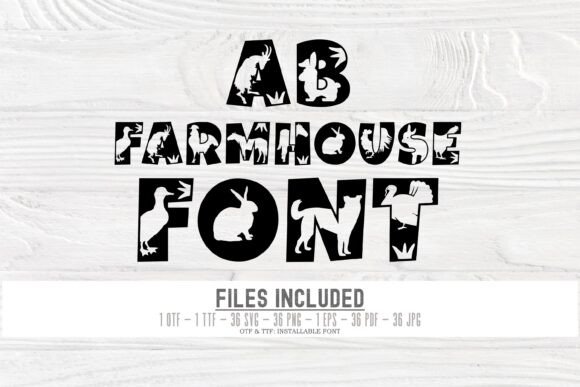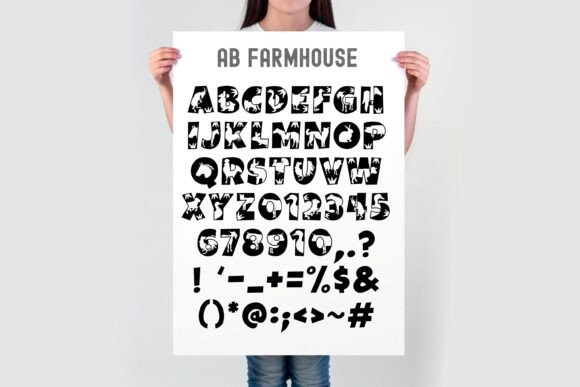
Venture into the Whimsical World of the AB Farmhouse Font
Are you ready to add a touch of rustic charm to your designs? Look no further than the AB Farmhouse Font, a unique and playful font that combines bold typography with delightful depictions of farm animals. This charming font is perfect for designers, crafters, and anyone looking to add a dash of country flair to their projects.
A Font Like No Other
The AB Farmhouse Font is not your average font. Each character is stylishly designed to house a different pastoral creature, making it a true standout in the world of typography. From cows to chickens, pigs to horses, every letter and number is carefully crafted to bring a touch of farmhouse charm to your designs. Whether you’re working on a farmhouse-themed décor project, a children’s craft, or simply looking to add some earthy charm to your designs, this font is sure to delight.
Rustic Allure Meets Playful Uniqueness
The AB Farmhouse Font is where rustic allure meets playful uniqueness. The font’s bold typography and whimsical animal designs make it the perfect combination of country charm and playfulness. The font’s unique design ensures that every project stands out from the crowd, adding a touch of personality and whimsy to any design. Whether you’re a designer looking to add some flair to your work or a crafter looking for a unique font for your projects, the AB Farmhouse Font is sure to inspire.
Endless Possibilities
The AB Farmhouse Font is incredibly versatile, making it perfect for a wide range of projects. Here are just a few ideas to get you started:
- Farmhouse-themed décor: Add a touch of rustic charm to your farmhouse-themed décor with signs, banners, and other decorative items featuring the AB Farmhouse Font.
- Children’s projects: Bring the farm to life for kids with fun and educational projects featuring the AB Farmhouse Font. From coloring pages to craft projects, this font is sure to delight.
- Stationery and invitations: Add a touch of country charm to your stationery and invitations with the AB Farmhouse Font.
- Digital designs: Use the AB Farmhouse Font to add a touch of whimsy to your digital designs, from social media graphics to blog posts.
Why Choose the AB Farmhouse Font?
So why choose the AB Farmhouse Font for your next project? Here are just a few reasons:
- Unique design: The AB Farmhouse Font features a unique and playful design that is sure to stand out from the crowd.
- Versatility: The font is incredibly versatile, making it perfect for a wide range of projects.
- Rustic charm: The font’s rustic charm and country flair make it perfect for farmhouse-themed projects and designs.
The AB Farmhouse Font is a unique and playful font that is sure to add a touch of rustic charm to any project. With its bold typography and whimsical animal designs, this font is perfect for designers, crafters, and anyone looking to add a dash of country flair to their work. Whether you’re working on a farmhouse-themed décor project, a children’s craft, or simply looking to add some earthy charm to your designs, the AB Farmhouse Font is the perfect choice. So why wait? Unleash your inventiveness and breathe life and creativity into your projects with the AB Farmhouse Font.
Get Creative with the AB Farmhouse Font
Ready to get creative with the AB Farmhouse Font? Here are a few tips to help you get started:
- Combine the AB Farmhouse Font with other fonts and graphics to create unique and eye-catching designs.
- Use the font to create custom signs, banners, and other decorative items for your home or business.